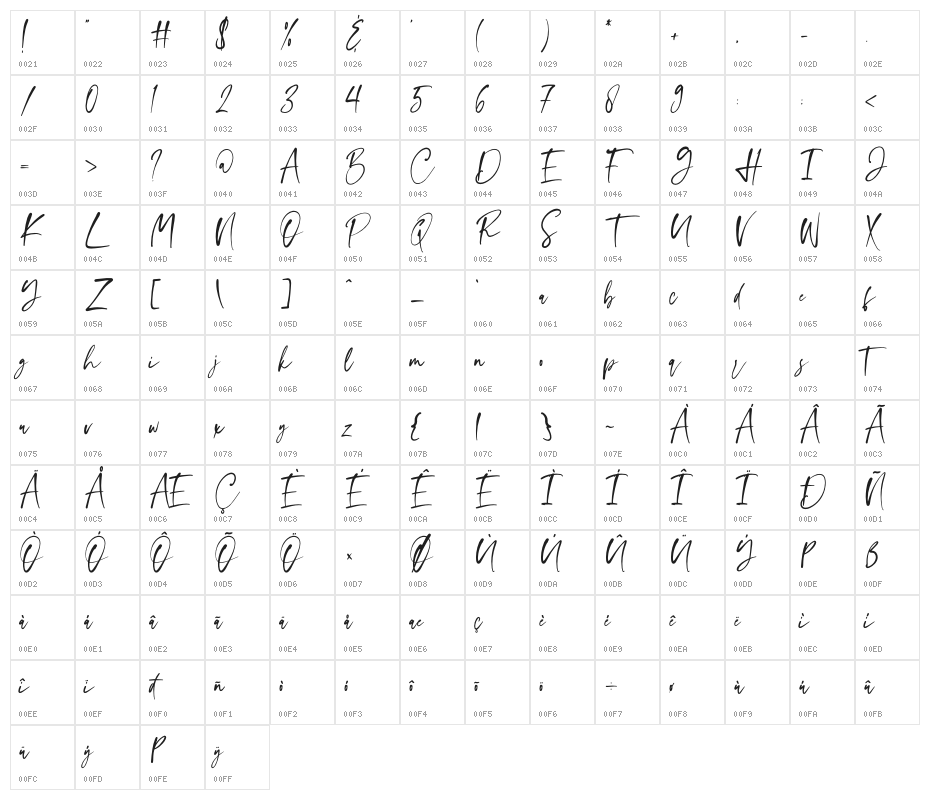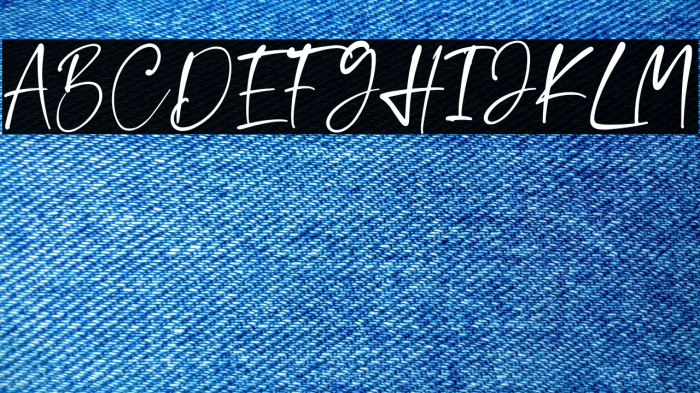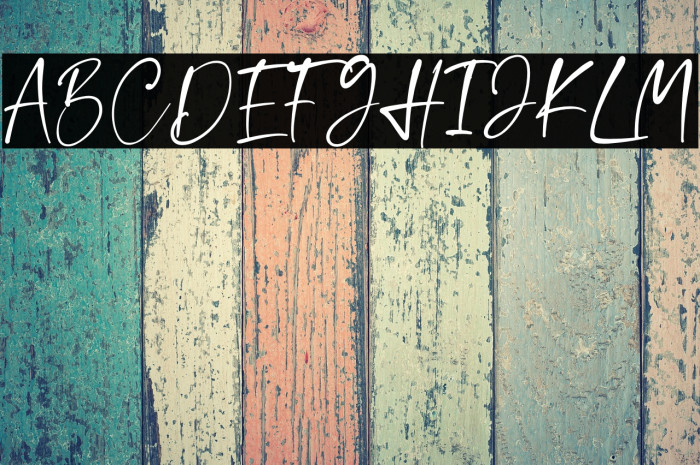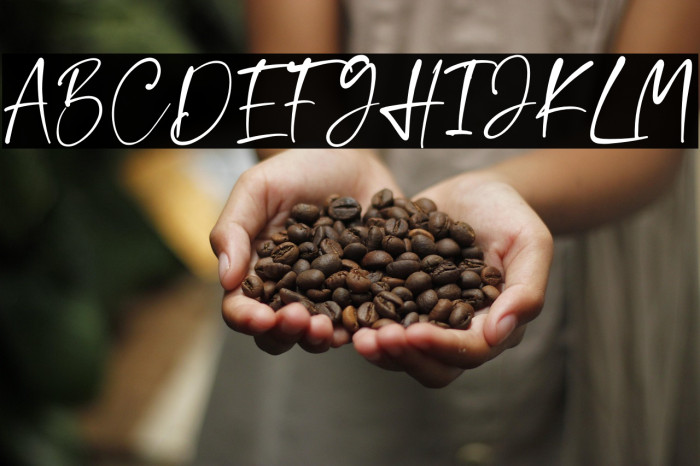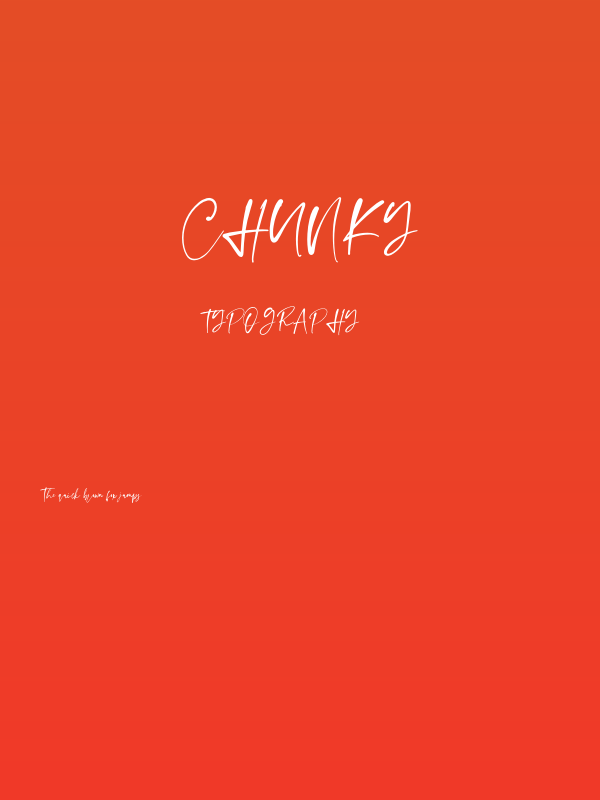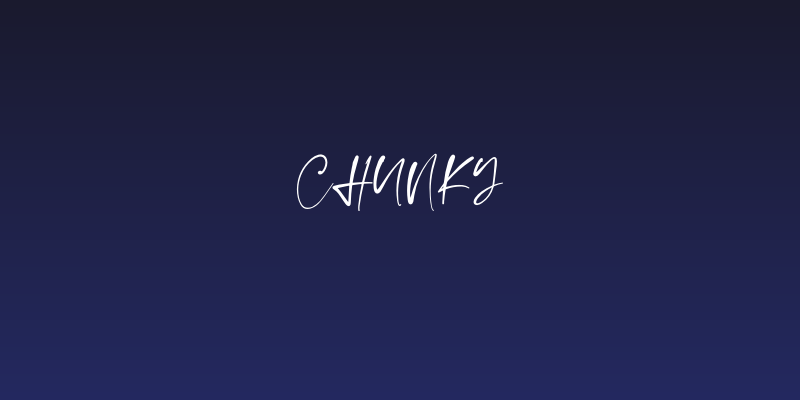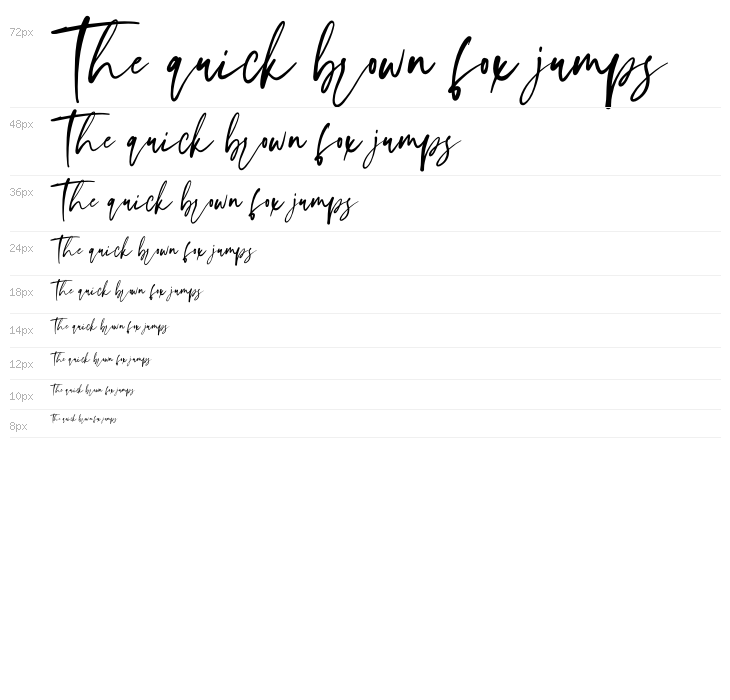
Chunky Font
Chunky Description
This font features a dynamic and expressive handwritten style, characterized by its fluid and flowing letterforms. The uppercase letters exhibit a playful yet elegant flair, with varying stroke widths that add a sense of movement and energy. The lowercase letters maintain a consistent style, complementing the uppercase with their smooth curves and loops. Numbers and special characters follow the same aesthetic, ensuring a cohesive look across all text. The overall appearance is both artistic and approachable, making it suitable for creative and informal applications.
| Use Case | Logos, Headlines, Creative projects |
| Proposed Projects | Ideal for greeting cards, invitations, personal branding, and creative projects that require a personal touch. |